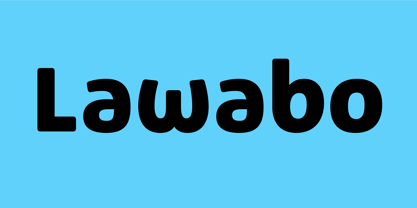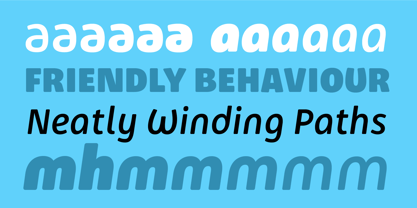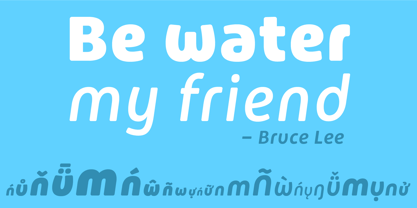
Lawabo
Lawabo by Schriftlabor
Lawabo Font Family was designed by Miriam Surányi, Rainer Erich Scheichelbauer and published by Schriftlabor. Lawabo contains 12 styles and family package options. More about this family
The original Lawabo was started many years ago by Rainer Scheichelbauer. Its ­minimalistic and rounded shapes are reminiscent of bathroom ceramics, hence the name. Schriftlabor designer Miriam Surányi added bold and italic shapes, and produced the family.